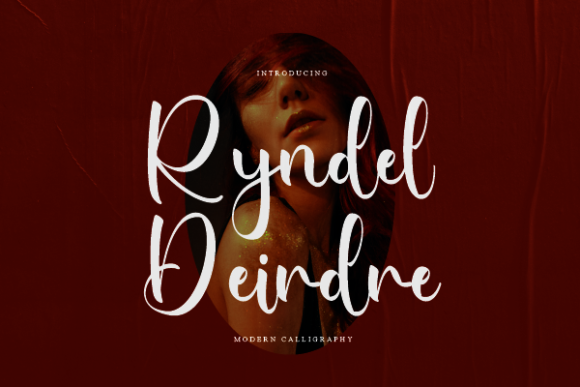
In a realm where digital artistry intertwines with the written word, Ryndel Deirdre emerges as a script font of unparalleled elegance, delicately adorning your creations with a touch of grace. Its flowing strokes, reminiscent of a gentle breeze caressing autumn leaves, infuse a sense of harmony into every design.
Immerse yourself in the world of Ryndel Deirdre and let your imagination soar. This exquisite font is a testament to the boundless power of creativity, seamlessly adapting to a myriad of projects, from captivating website designs to enchanting invitations that leave a lasting impression.
With Ryndel Deirdre as your creative companion, experience the joy of transforming ordinary words into captivating expressions of art. Its well-balanced characters, each meticulously crafted, dance in perfect harmony, adding a touch of sophistication to every project.
Welcome to a world of limitless possibilities, where Ryndel Deirdre's delicate embrace elevates your designs to new heights. Embrace the beauty of handwritten elegance and watch as your creations blossom into masterpieces that captivate and inspire.